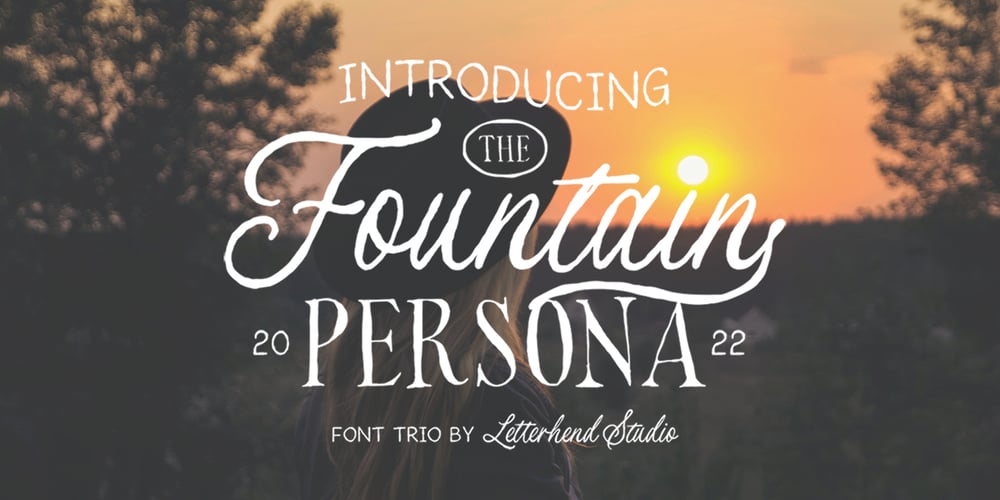
Fountain Persona Font Family was designed by Hendry Juanda and published by Letterhend. Fountain Persona contains 3 styles and family package options. Fountain Persona is a font pack consist of 3 fonts. These fonts were created based on authentic hand writing with natural signature style. It worked well to combine these three fonts into one lettering. This type of font perfectly made to be applied especially in logo, and the other various formal forms such as invitations, labels, logos, magazines, books, greeting / wedding cards, packaging, fashion, make up, stationery, novels, labels or any type of advertising purpose.Features : 3 fonts uppercase & lowercase numbers and punctuation multilingual PUA encoded We highly recommend using a program that supports OpenType features and Glyphs panels like many of Adobe apps and Corel Draw, so you can see and access all Glyph variations.